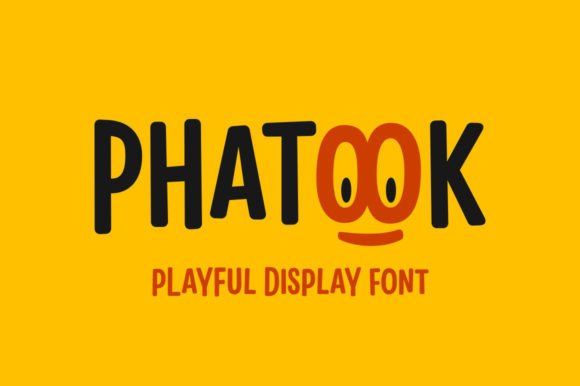
Phatook Font
Prepare to be spellbound by Phatook, the display typeface that defies the ordinary with its playful spirit and captivatingly unconventional baseline. Crafted by the visionary Southills Studio, this typographic masterpiece is a symphony of fun and flair that will ignite your creative endeavors.
Immerse yourself in the world of Phatook, where each letter dances with a mischievous grin, creating a visual spectacle that demands attention. Its playful demeanor and casual charm will effortlessly captivate your audience, making it the perfect choice for poster designs that demand to be noticed.
Imagine the delight of a child as they open a book adorned with the whimsical characters of Phatook, its bouncing baseline adding a touch of magic to their literary adventures. Unleash your inner child with this font that perfectly captures the essence of joy and laughter.
Phatook's versatility knows no bounds, extending beyond the realm of posters and children's books. Its playful nature lends itself seamlessly to the vibrant world of comics, bringing your characters to life with a touch of whimsy. Let your imagination soar as you create eye-catching snack packaging that will tempt taste buds and delight the senses.
In the realm of greeting cards, Phatook transforms heartfelt messages into unforgettable expressions of love, friendship, and celebration. Its ability to evoke emotions through its unique design will ensure that your sentiments resonate deeply with those you cherish.